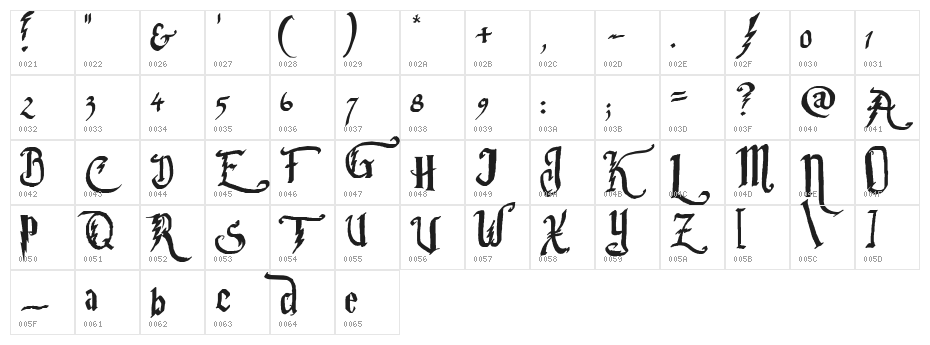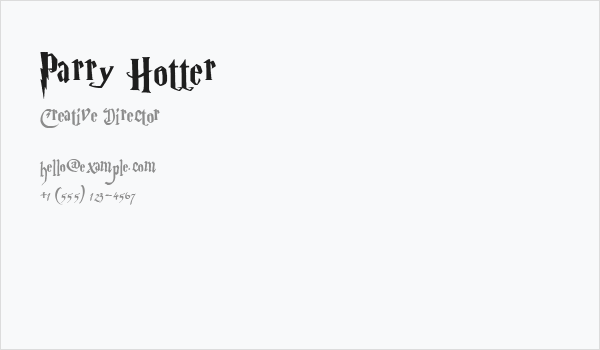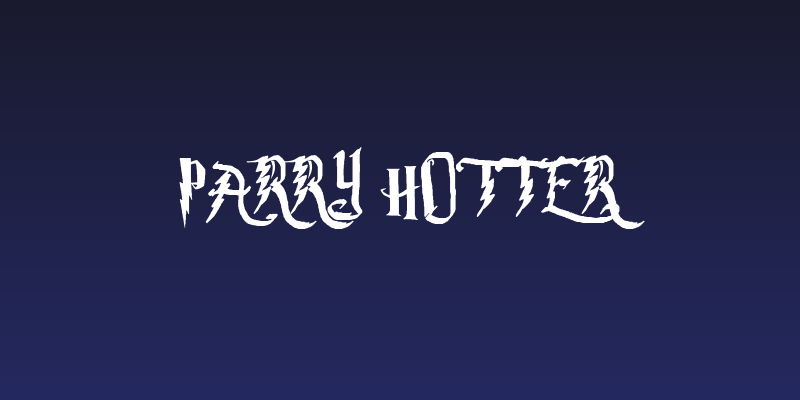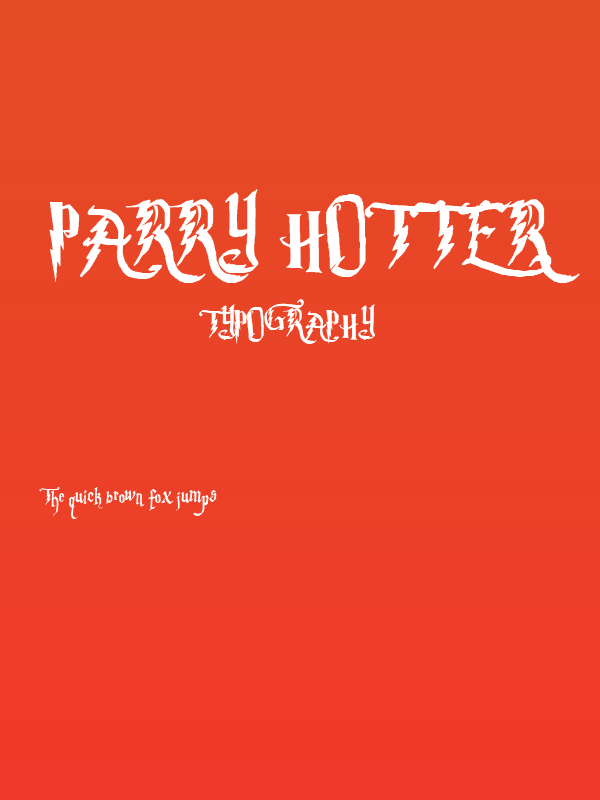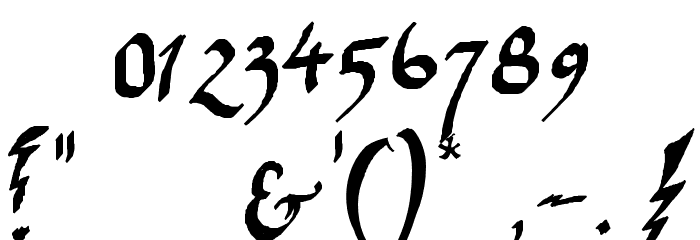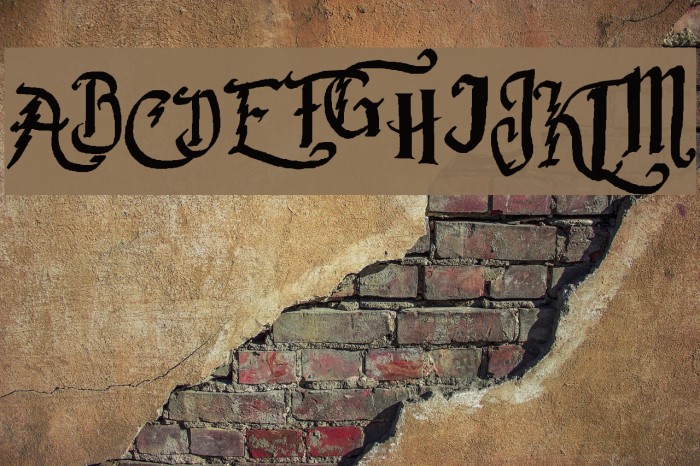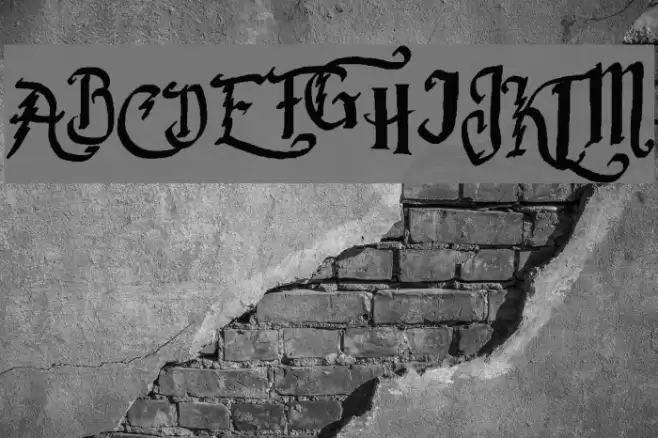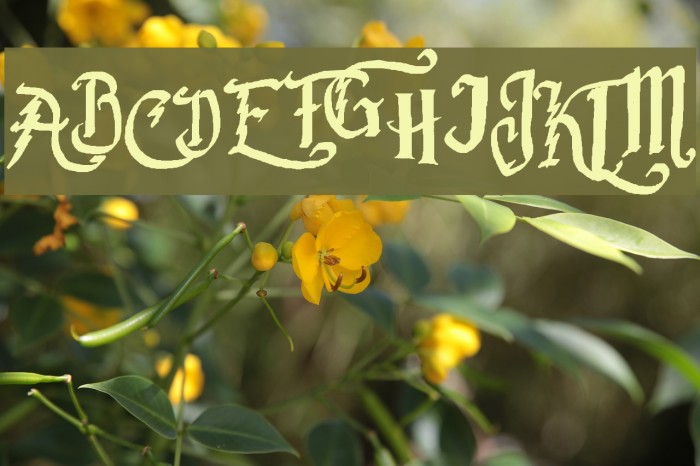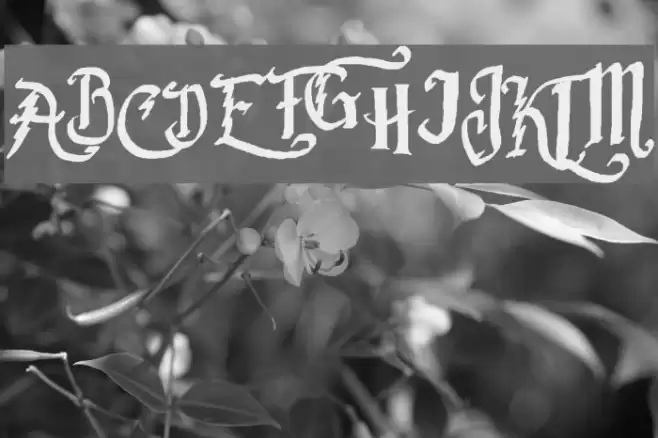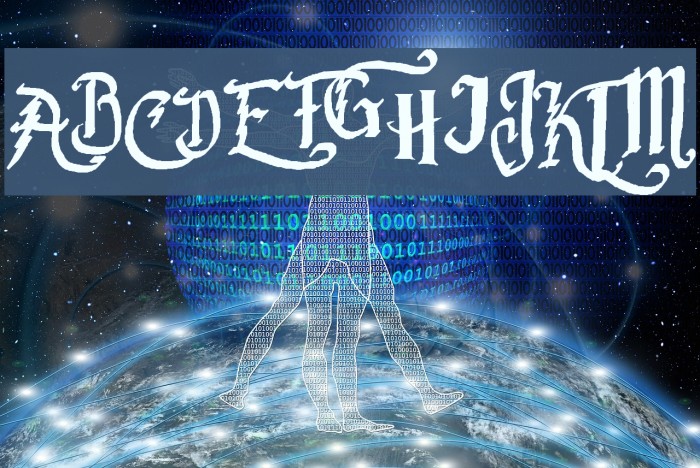
Parry Hotter Font
Parry Hotter Description
This font features a distinctive and ornate style reminiscent of medieval script, characterized by its intricate and decorative letterforms. The uppercase letters are bold and elaborate, with flourishes and sharp angles that give them a dramatic appearance. The lowercase letters maintain the same decorative quality, with some characters featuring unique loops and curves. Numbers and special characters are designed to match the overall aesthetic, with a consistent use of bold strokes and decorative elements. The font's style is evocative of fantasy and historical themes, making it suitable for projects that require a touch of magic or antiquity.
| Proposed Projects | Ideal for fantasy book covers, themed event invitations, historical reenactment materials, and decorative signage. |